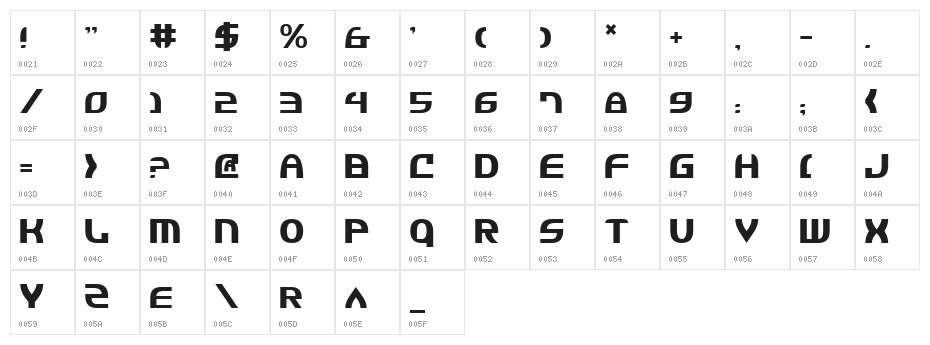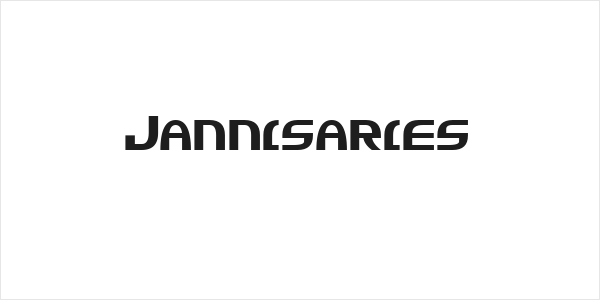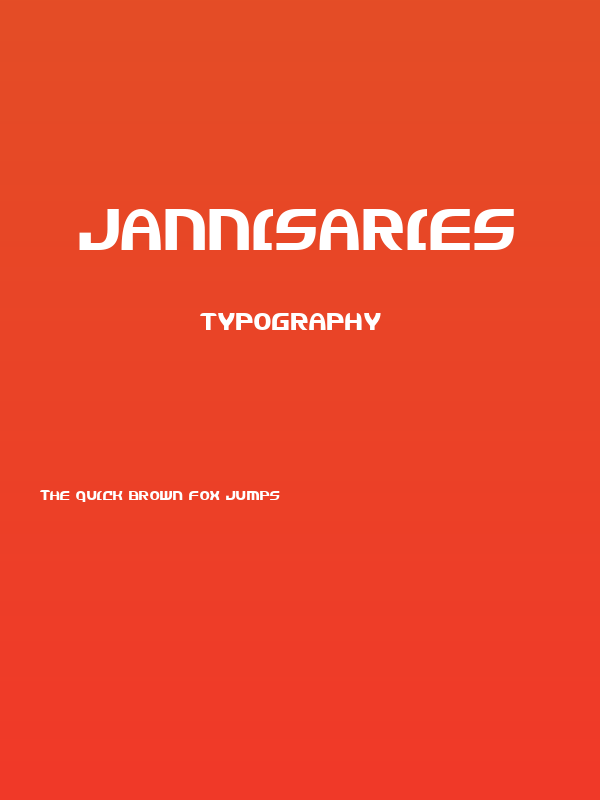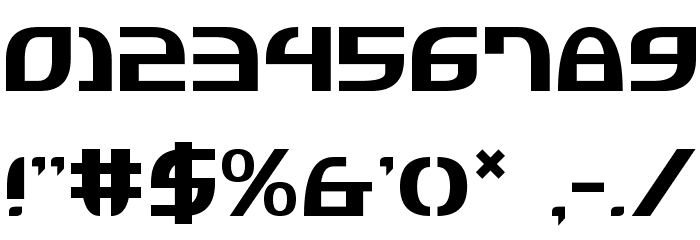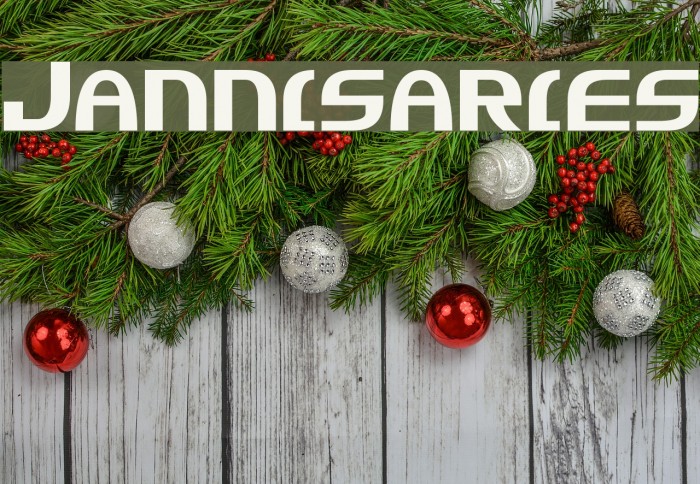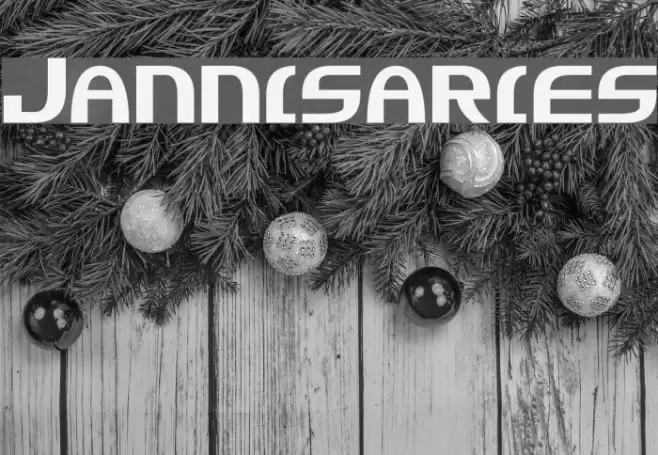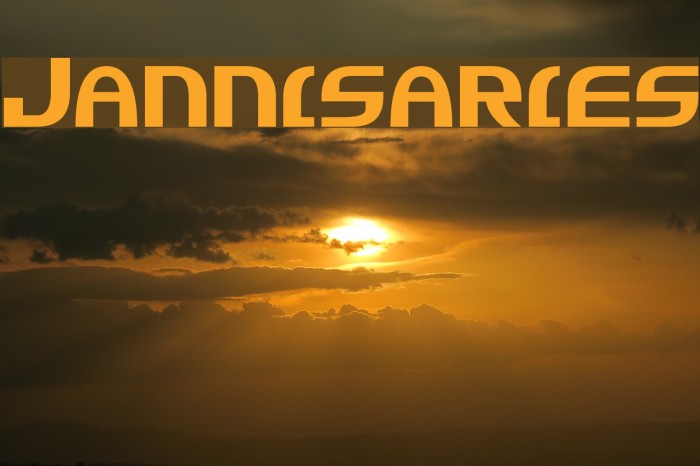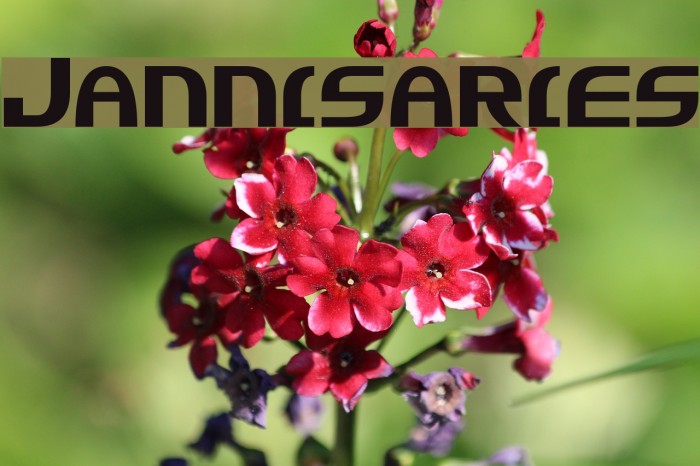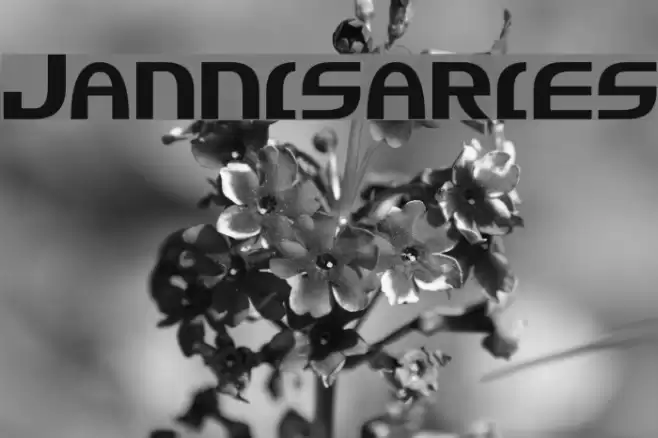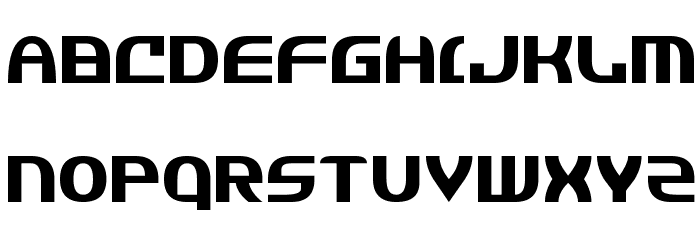
Jannisaries Font
Jannisaries Description
This font features a bold, geometric design with a futuristic and modern aesthetic. The characters are constructed with strong, angular lines and a consistent stroke width, giving it a robust and impactful appearance. The uppercase letters are particularly striking, with unique shapes that incorporate both curves and sharp edges, creating a dynamic visual effect. The lowercase letters maintain the same boldness, ensuring readability while retaining the font's distinctive style. Numbers and special characters are designed to match the overall theme, providing a cohesive look across all elements. This font's bold and structured design makes it suitable for projects that require a strong visual presence.